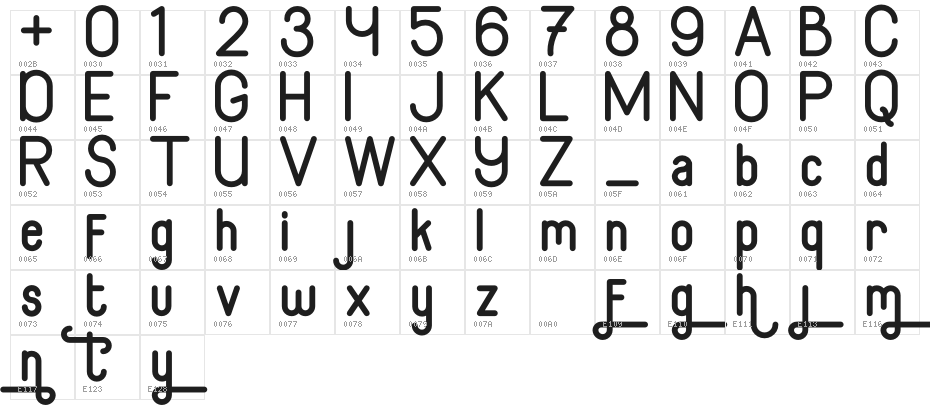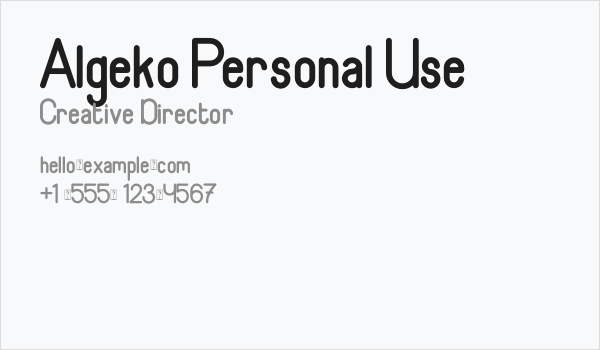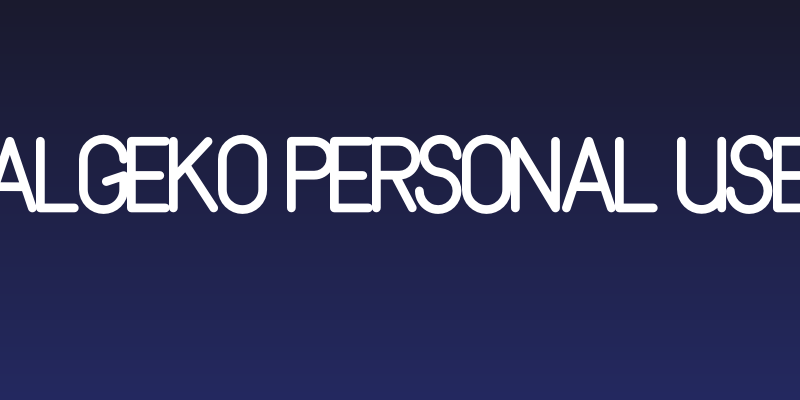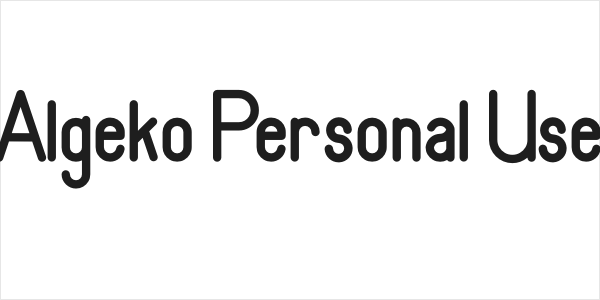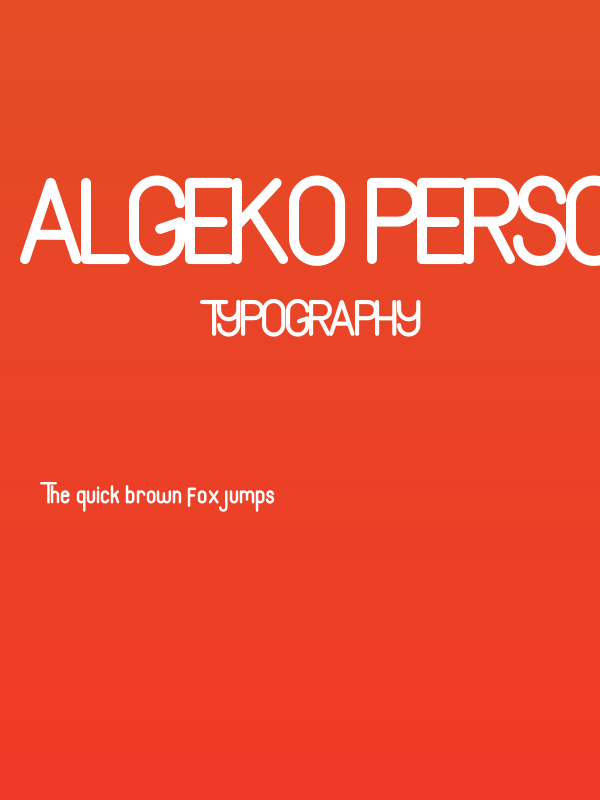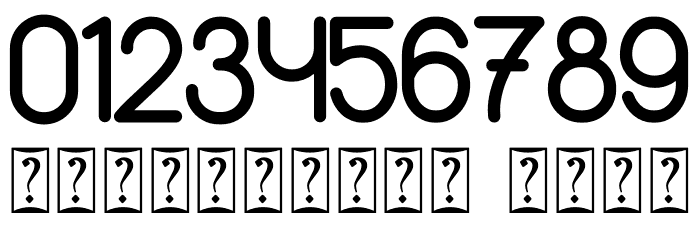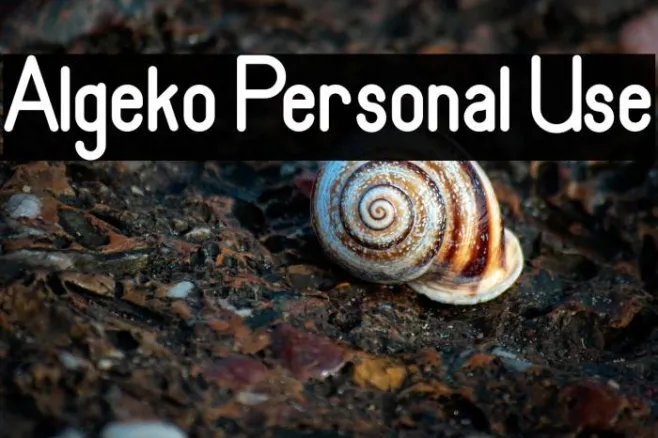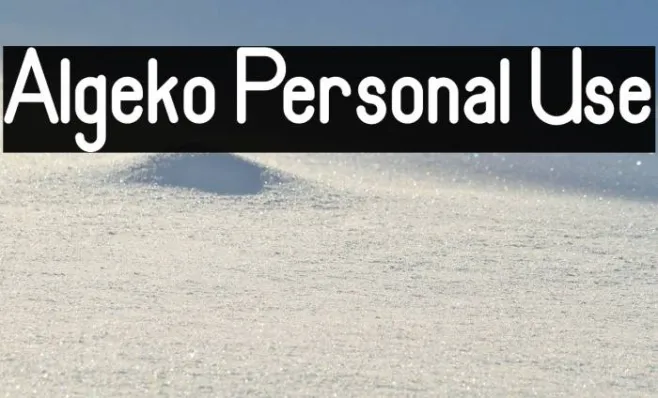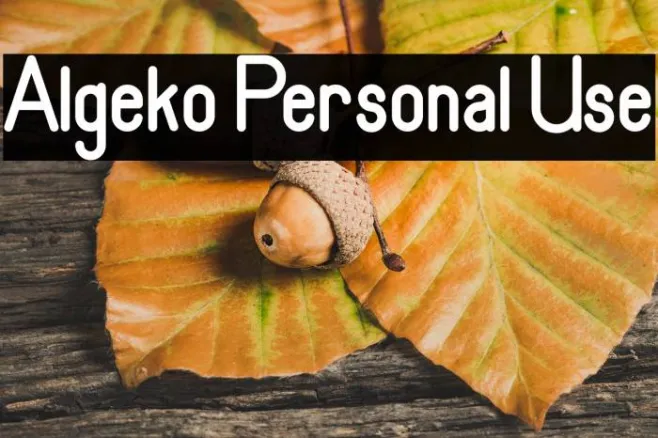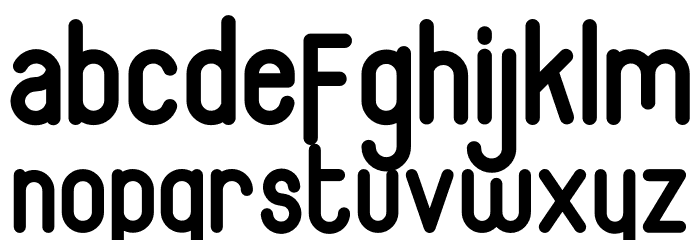
Algeko Personal Use Font
Algeko Personal Use Description
This font features a modern, rounded sans-serif style with uniform stroke widths, creating a clean and approachable appearance. The characters are well-proportioned, with a consistent height and width that enhances readability. The uppercase letters are bold and assertive, while the lowercase letters maintain a friendly and inviting look. The numerals are clear and distinct, making them suitable for various applications. The font's design is versatile, making it ideal for both digital and print media. Its simplicity and clarity make it a great choice for branding, signage, and user interfaces.